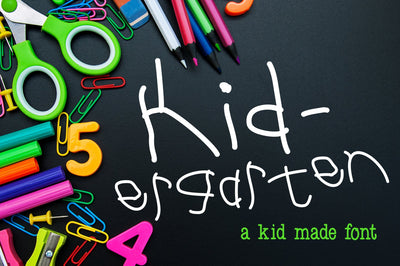
Kid-ergarten
Kid-ergarten is the perfect font to add that kid made feel. This font was written up by my 5 year old son who wishes to someday grow up and create fonts, just like his momma.